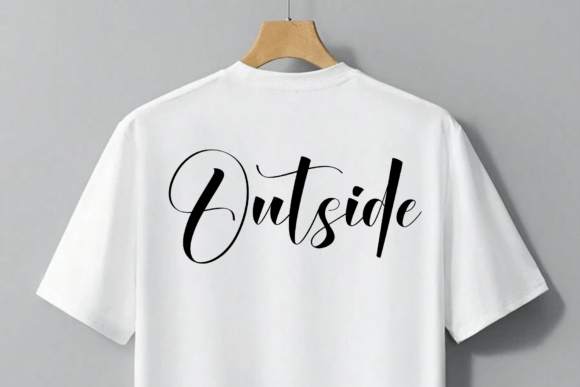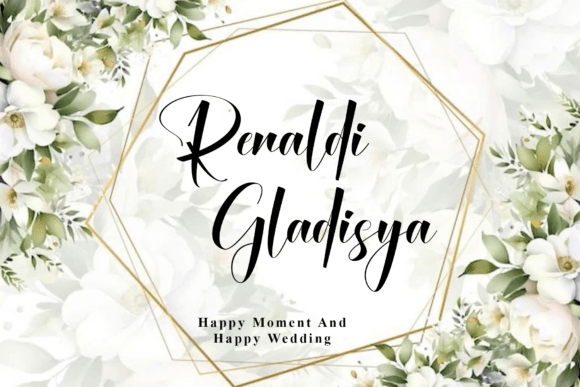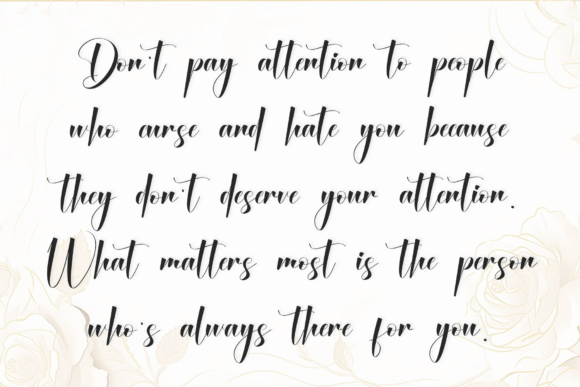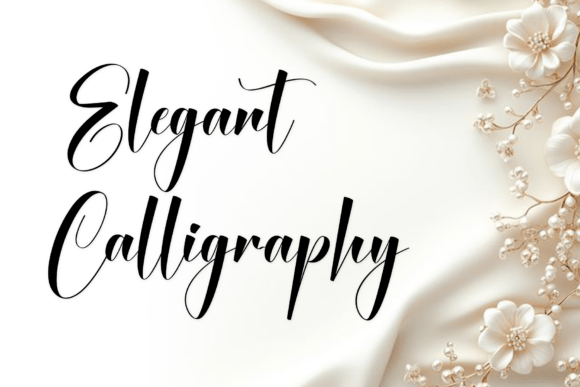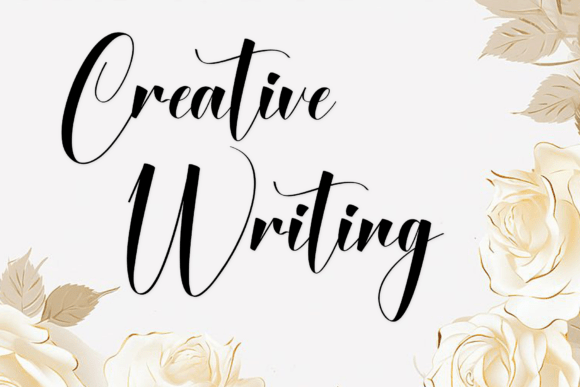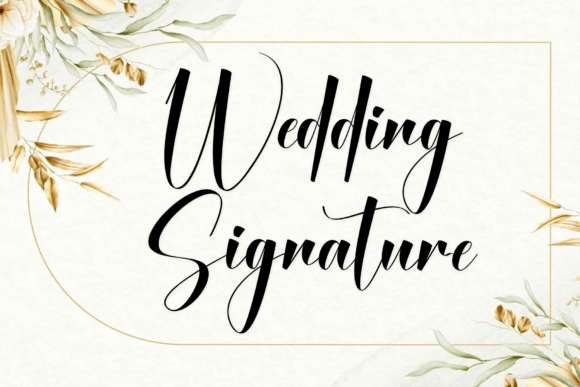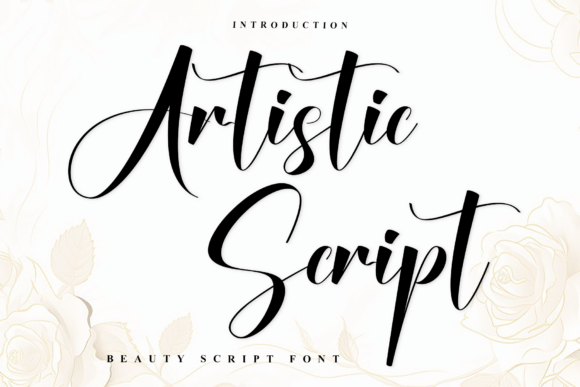
Elevate Your Designs with Artistic Script Font: A Masterclass in Elegance and Expressiveness
In the realm of typography, few fonts capture the essence of luxury, elegance, and emotion as effectively as the Artistic Script font. This refined, modern script typeface is a beautiful blend of traditional calligraphy and the fluidity of handwritten lettering, making it an indispensable tool for designers and crafters looking to add a touch of sophistication to their projects.
The Artistic Script Font: A Symphony of Elegance and Fluidity
Artistic Script font boasts long, sweeping ascenders and descenders that dance across the page, accompanied by delicate swashes and graceful ligatures. This harmonious combination brings a sense of movement and luxury to every composition, making it particularly well-suited for high-end applications such as wedding stationery, fashion branding, luxury packaging, and editorial layouts.
Example of Artistic Script Font in use
The Power of Contrast: Thick and Thin Strokes
One of the defining characteristics of Artistic Script font is its sophisticated contrast between thick and thin strokes. This dynamic interplay adds a level of character and expressiveness to the font, imbuing it with a sense of energy and emotion. Whether used in print or digital formats, Artistic Script font maintains excellent legibility, ensuring that your message is conveyed with clarity and style.
Designing with Ease: PUA Encoding and Stylistic Alternates
Artistic Script font is fully PUA (Private Use Area) encoded, providing effortless access to its complete set of stylistic alternates, swashes, and decorative elements. This feature ensures a seamless and versatile design experience, allowing you to experiment with different styles and variations without the need for manual adjustments.
With Artistic Script font, the creative possibilities are endless. Use it to:
• Create stunning wedding stationery and invitations that set the tone for a luxurious and unforgettable celebration.
• Elevate fashion branding and packaging with a font that exudes high-end style and sophistication.
• Add a touch of elegance to editorial layouts, such as magazine articles and blog posts.
• Craft eye-catching headlines and titles for advertising and marketing campaigns.
A Font for Designers and Crafters
Artistic Script font is an indispensable tool for designers and crafters looking to add a touch of luxury and elegance to their projects. Whether you’re a seasoned professional or just starting out, this versatile font is sure to inspire and elevate your designs.
In conclusion, Artistic Script font is a refined, modern script typeface that offers a unique blend of elegance, expressiveness, and versatility. With its long, sweeping ascenders and descenders, delicate swashes, and sophisticated contrast between thick and thin strokes, it’s the perfect choice for designers and crafters looking to add a touch of luxury to their projects. Try Artistic Script font today and discover a world of creative possibilities!